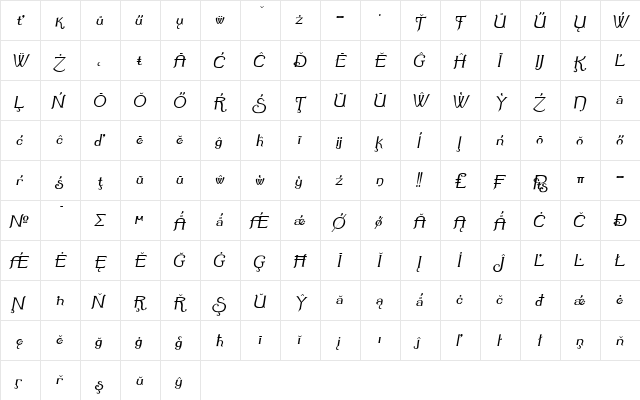
Summertime Extra Oblique
| Designer | Sara |
Design Context for Summertime Extra Oblique Typeface
Summertime Extra Oblique is a composed and adaptable typeface that performs quietly and consistently across a wide range of design contexts. The dynamic lean of this cut emphasises speed and emphasis in any layout.
Pro Tip: Try Summertime Extra Oblique for annotation and caption copy alongside an upright companion — the contrast in angle creates a dynamic but ordered typographic system.